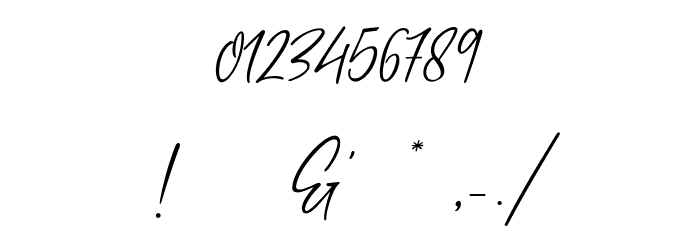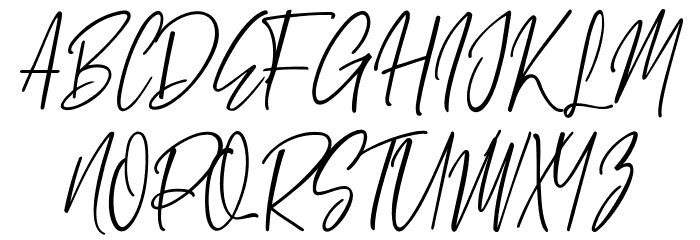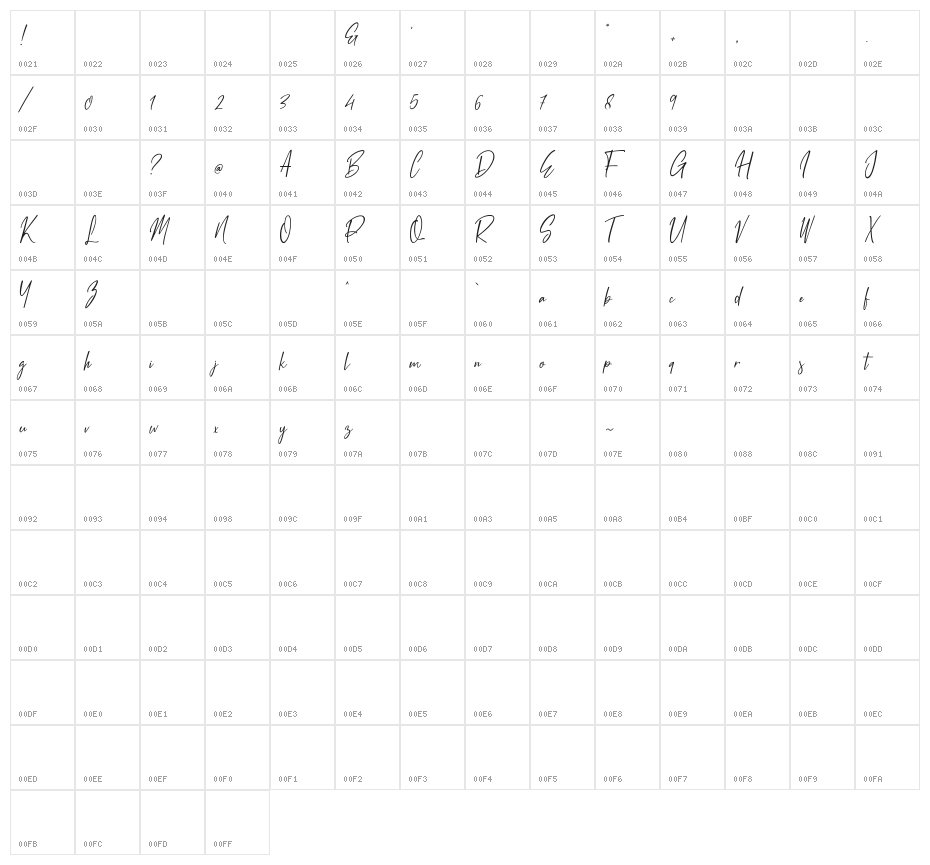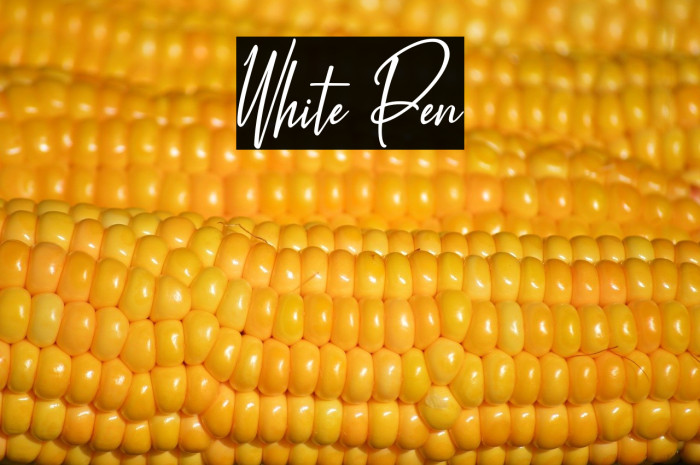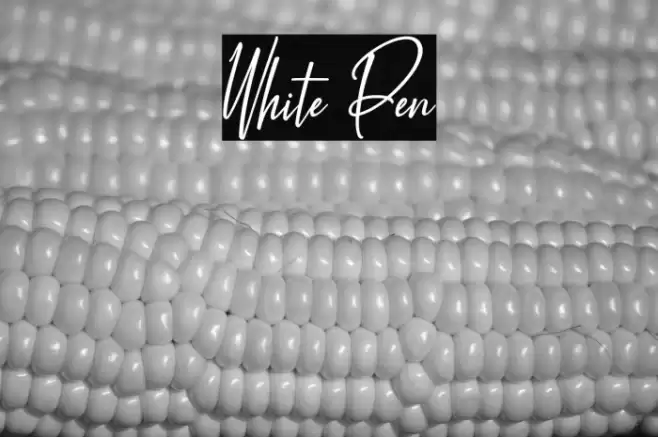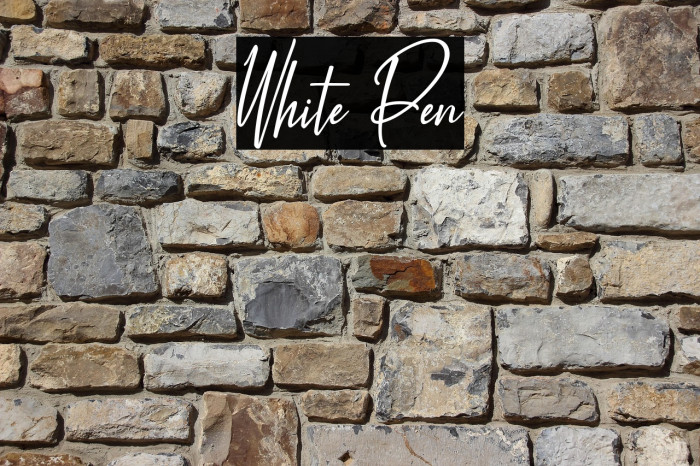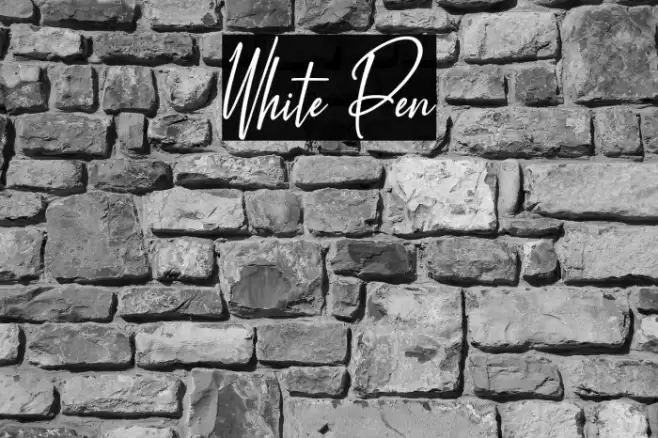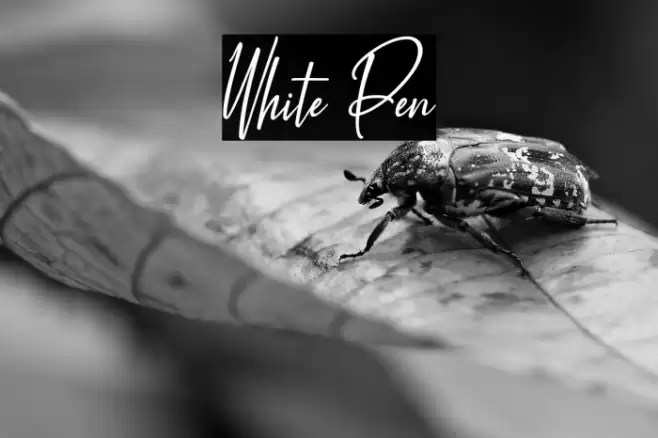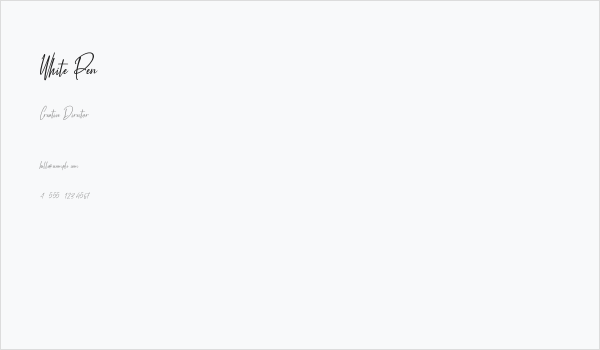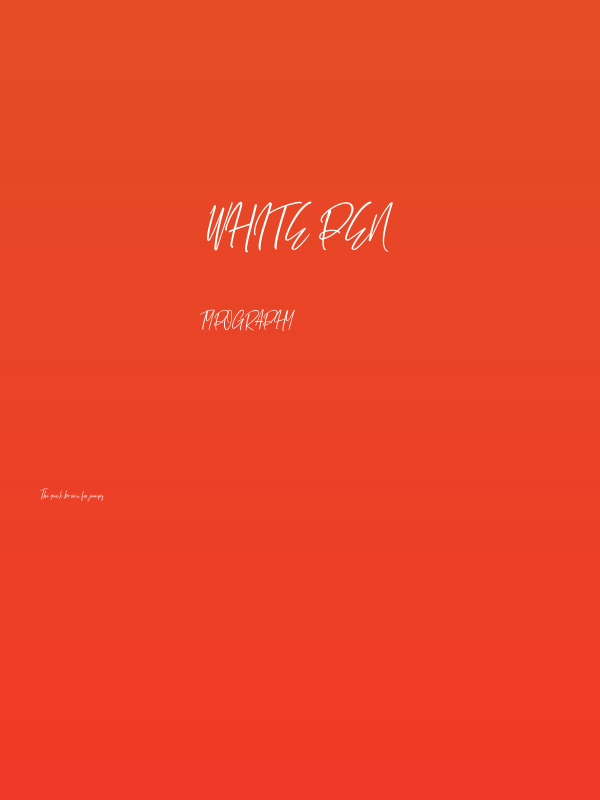
White Pen Font
White Pen Description
This font exudes a dynamic and elegant handwritten style, characterized by its fluid and cursive strokes. The uppercase letters are bold and sweeping, with a slight slant that adds a sense of motion and grace. The lowercase letters maintain a consistent flow, complementing the uppercase with their smooth curves and delicate connections. Numbers and special characters are crafted with the same attention to detail, ensuring a cohesive appearance across all elements. The overall design is both stylish and legible, making it suitable for a variety of creative applications.
| Use Case | Logos, Headlines, Invitations |
| Proposed Projects | Ideal for wedding invitations, greeting cards, branding, and personal signatures. |